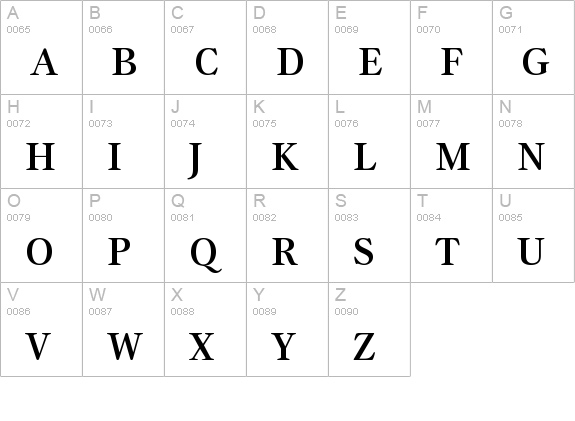
GammaEF-Medium is a balanced, medium-weight variant in the GammaEF typeface family \xE2\x80\x94 well suited to sub-headlines, navigation, and balanced editorial work.
Introducing GammaEF-Medium, a versatile and captivating font that will elevate your design projects to new heights. With its balanced proportions and clean lines, this font exudes a sense of modern sophistication and elegance. Whether you're working on a poster, a website, or a logo, GammaEF-Medium has the versatility to adapt to any creative endeavor. Its medium weight strikes the perfect balance between boldness and subtlety, making it suitable for both headlines and body text. One of the most attractive features of GammaEF-Medium is that it is freely available to download at FontsMarket.com. This means that you can access this exceptional font without any cost, allowing you to enhance your designs without breaking the bank. With its extensive set of characters, GammaEF-Medium offers multilingual support, ensuring that your message can reach a global audience. Additionally, its meticulous attention to detail guarantees legibility and clarity, even at smaller sizes. Whether you're a professional designer or a hobbyist, GammaEF-Medium is a must-have font in your collection. Its versatility, elegance, and the fact that it is freely available to download at FontsMarket.com make it a valuable asset for any creative project. Elevate your designs with GammaEF-Medium and let your creativity shine.